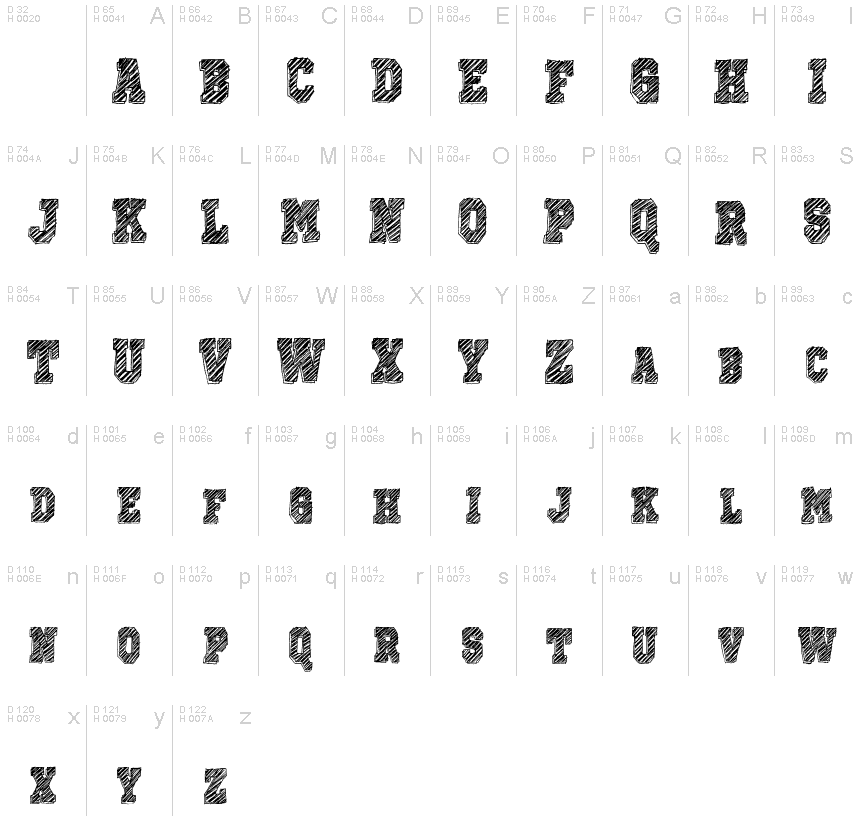
PrizedStudy
Prized Study, crafted by the innovative Max Infeld of Xerographer Fonts, is a striking display font that commands attention with its bold, condensed form and old school flair. Its distinctive character stems from a masterful blend of nostalgic charm and modern-day boldness, making it an excellent choice for projects that require a touch of retro sophistication.
The weighty presence of Prized Study is balanced by its condensed width, offering a robust typographic solution without overwhelming the design space. This font exudes confidence and is versatile enough to elevate branding materials, posters, and any creative endeavor seeking a strong visual impact with an air of time-honored elegance.
Whether employed in digital graphics or printed collateral, Prized Study's aesthetic appeal lies in its ability to marry the essence of yesteryear with contemporary crispness. This fusion ensures that it stands out as both memorable and highly functional in diverse design contexts.